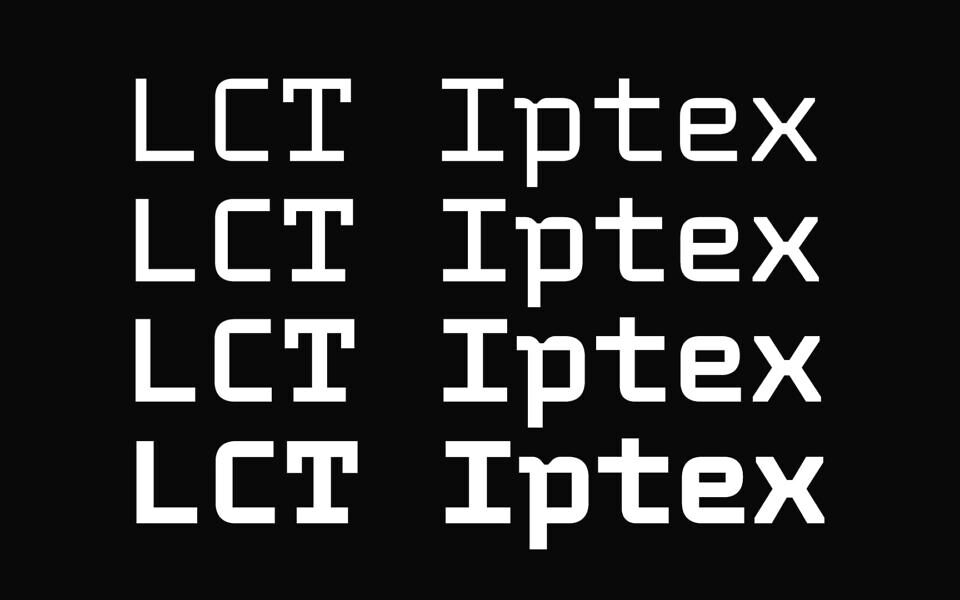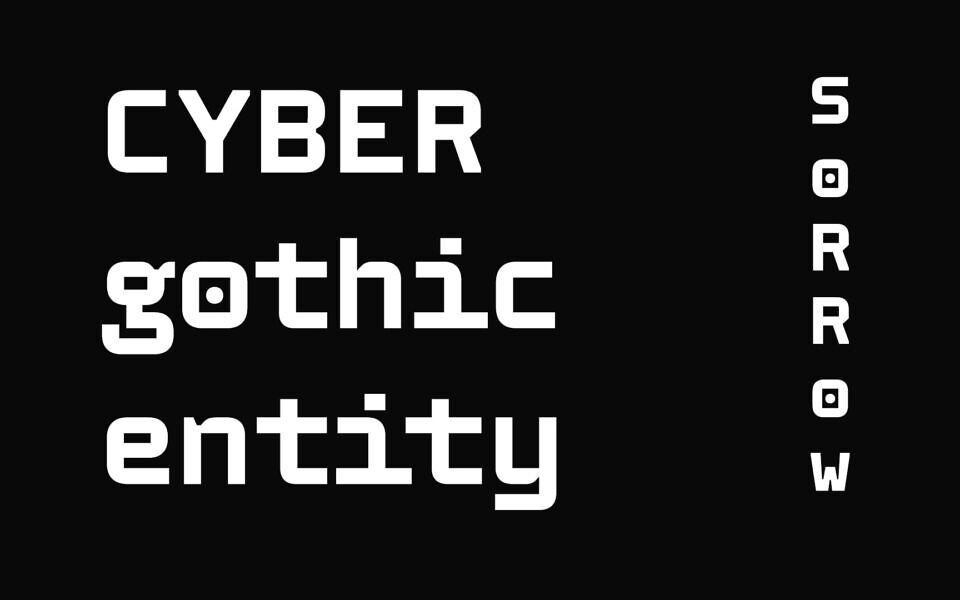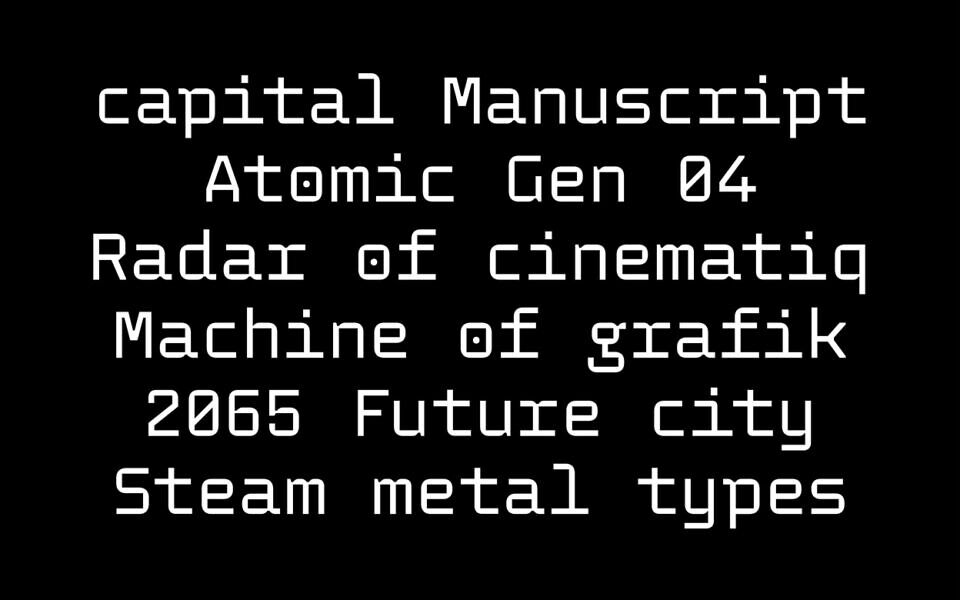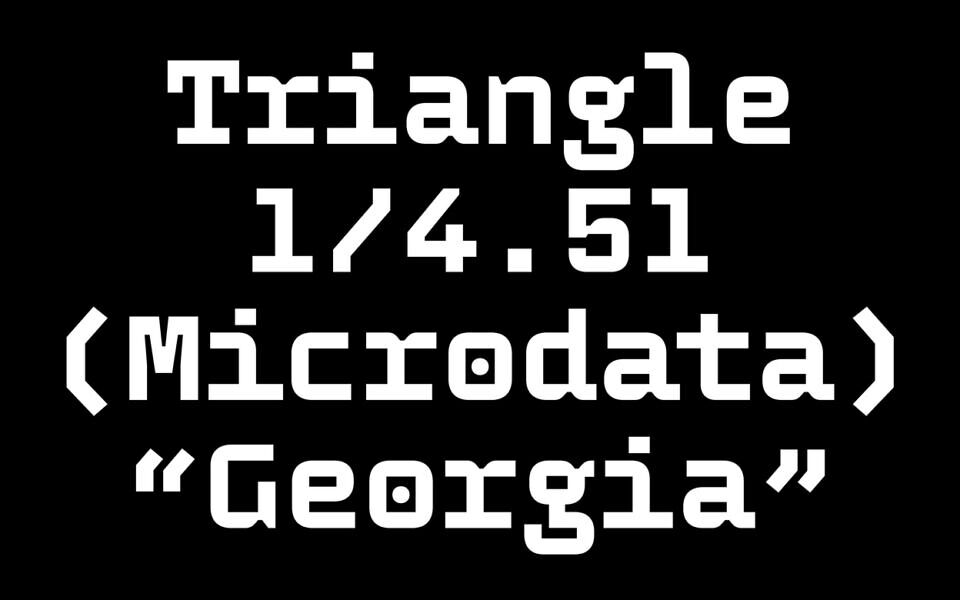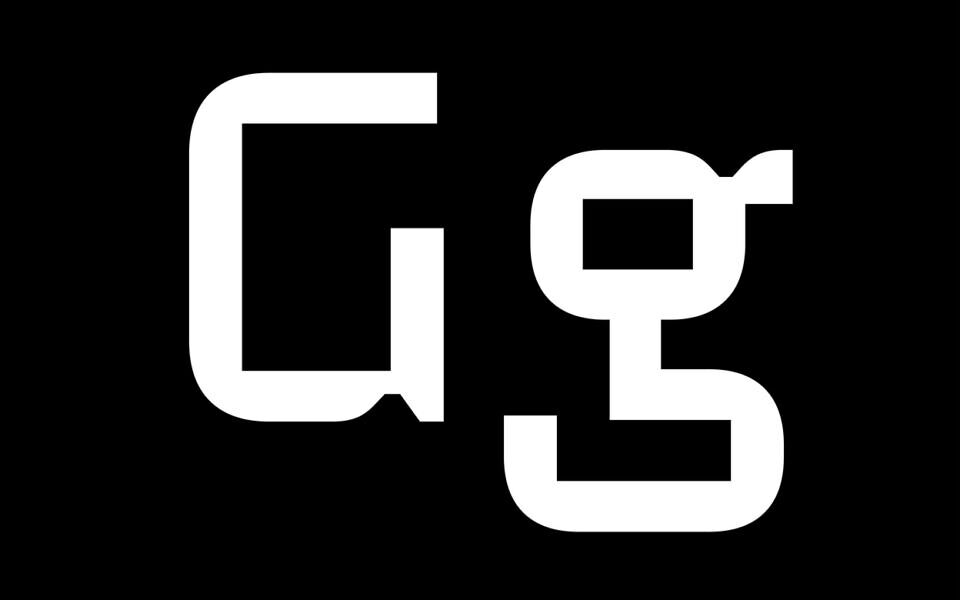
LCT Iptex is a futuristic monospace typeface inspired by the modular design principles of Wim Corwel. With its geometric precision and modern aesthetic, LCT Iptex embodies the essence of contemporary modular forms. Each character is crafted with clean lines, balanced proportions, and a consistent rhythm, reflecting both functionality and visual harmony.
Designed for both digital and print applications, LCT Iptex offers a sleek, high-tech appearance suitable for coding environments, UI design, and branding that seeks a forward-thinking look. Its monospace structure ensures alignment and clarity, while subtle design details add character and personality. LCT Iptex stands as a testament to the fusion of modern minimalism and futuristic innovation, making it an ideal choice for projects that demand a bold, cutting-edge typographic voice.